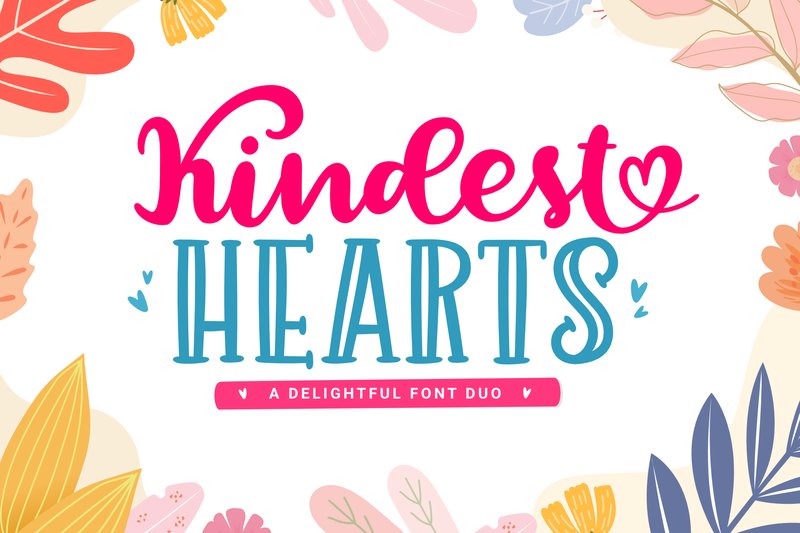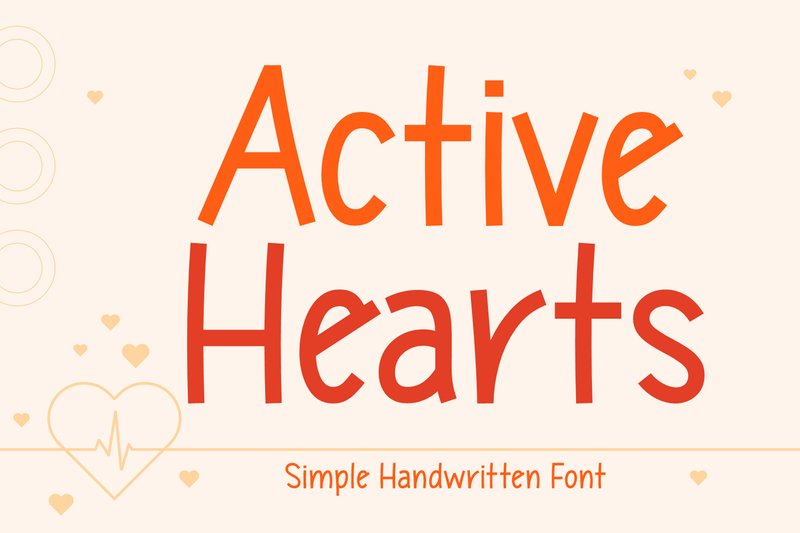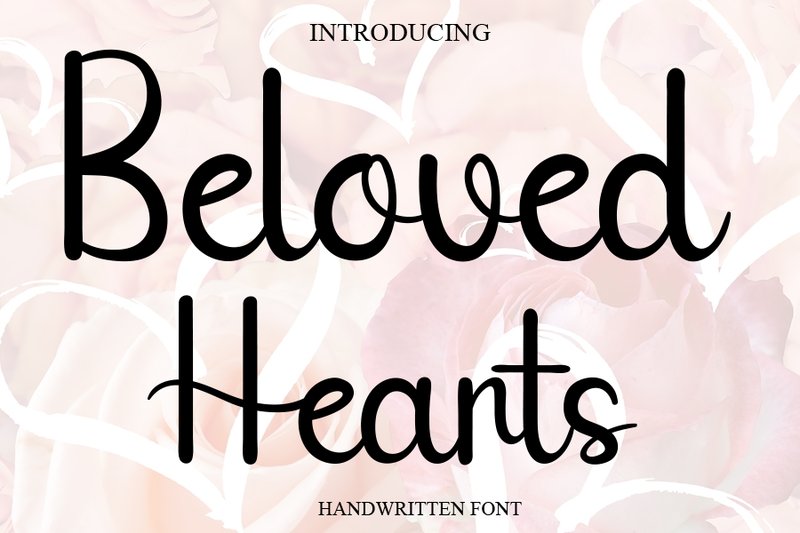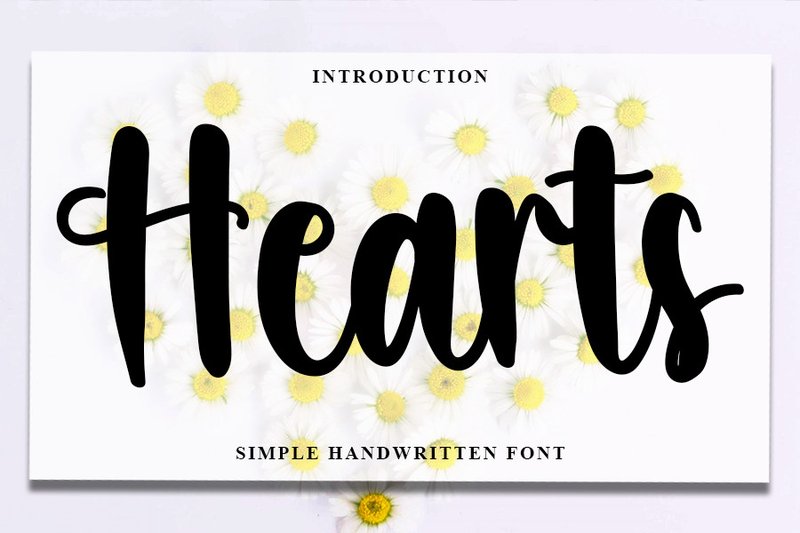
Welcome, creators! In the design world of 2026, where authenticity and emotional connection reign supreme, the humble heart font is having a major moment. It’s no longer just for Valentine’s Day; these typefaces are key to adding warmth, nostalgia, and a playful touch to any project. From elegant wedding invitations and branding for artisanal products to eye-catching social media graphics for DIY crafters, a well-chosen heart font can make your design truly sing. We’ve scoured the market to bring you this curated list of the 25 most popular and beautifully designed heart fonts that designers are loving right now.
1. Kindest Hearts (by Holydie Studio)
Kindest Hearts (by Holydie Studio) is a beautifully paired font duo that brings together the free-spirited charm of a handwritten script with the timeless grace of a clean serif. This combination creates a wonderfully balanced typographic system that feels both personal and professional. The script flows with an effortless, organic rhythm, while the serif provides a stable, elegant foundation, making the duo incredibly versatile for projects that need to feel both authentic and polished. It’s a fresh take on classic pairing, delivering warmth and sophistication in a single, cohesive package.
- A complete font duo featuring a romantic handwritten script and a complementary serif.
- Excellently balanced characters for a clean, legible, and professional finish.
- An authentic, handcrafted aesthetic that adds a touch of genuine warmth.
- Elegant wedding invitations, stationery, and heartfelt announcements.
- Boutique branding, product packaging, and social media quote graphics.
- Editorial headlines and logos that need a blend of personality and polish.
- Crafting charming greeting cards, book covers, and personal blog headers.
2. Active Hearts (by Creative Fabrica Fonts)
Active Hearts (by Creative Fabrica Fonts) exudes a delightful, effortless charm that feels like a personal note from a close friend. This friendly handwritten typeface bypasses formal rigidity in favor of a casual, playful vibe, making every word feel genuine and warm. Its smooth, flowing characters create an approachable and organic rhythm, perfect for designs that need to connect on a human level.
- A casual, playful handwritten style
- Smooth, flowing letterforms for an organic feel
- A warm and approachable character
- Charming versatility for a wide range of projects
- Engaging social media graphics and quote images
- Heartfelt greeting cards, invitations, and personal notes
- Friendly branding for boutiques, cafes, and craft businesses
- Digital journaling and personalized merchandise designs
3. Beloved Hearts (by janurmasahmad)
Beloved Hearts (by janurmasahmad) is a modern handwritten script that feels both intimate and effortlessly chic. This high-contrast font balances youthful romance with clean sophistication, using tall, elegant loops and a slightly bouncy baseline to create a sense of organic movement and playful charm. Its smooth, rounded terminals and consistent stroke weight give it a polished yet personal feel, making it a perfect vehicle for messages of genuine affection and heartfelt sincerity.
- High-contrast strokes with soft, rounded terminals
- Tall, elegant loops that add a touch of grace
- A slightly bouncy baseline for a natural, handwritten feel
- Excellent readability for a decorative script font
- Wedding invitations, save-the-dates, and romantic stationery
- Feminine branding, logos, and heartfelt product packaging
- Social media quote graphics and Valentine’s Day campaigns
- Personalized greeting cards and baby shower announcements
4. Bright Hearts (by Holydie Studio)
Bright Hearts (by Holydie Studio) Charming and full of personality, this beautiful script font from Holydie Studio brings a touch of handcrafted elegance to any layout. Its smooth, flowing letterforms and gracefully integrated heart elements create a look that is both sweet and sophisticated. Bright Hearts avoids feeling overly saccharine, instead offering a modern take on romantic typography that feels fresh and incredibly versatile for creative projects.
- Elegant, smooth-flowing script characters
- Decorative heart-shaped swashes and alternates
- Includes uppercase, lowercase, numerals, and punctuation
- Supports multilingual characters for broader usability
- Wedding invitations, save-the-dates, and event signage
- Branding for boutiques, bakeries, or lifestyle blogs
- Social media graphics, especially for Valentine’s Day or romantic themes
- Personalized gift tags and heartfelt greeting cards
5. Hearts (by Inermedia STUDIO)
Hearts (by Inermedia STUDIO) is an immediate essential for wedding stationers and boutique branding specialists seeking to convey effortless elegance. This font masterfully blends the grace of timeless calligraphy with a clean, contemporary sensibility. Its handwritten style feels personal and upscale, with impeccably balanced letterforms that flow beautifully across the page, making any text feel both sophisticated and warmly inviting.